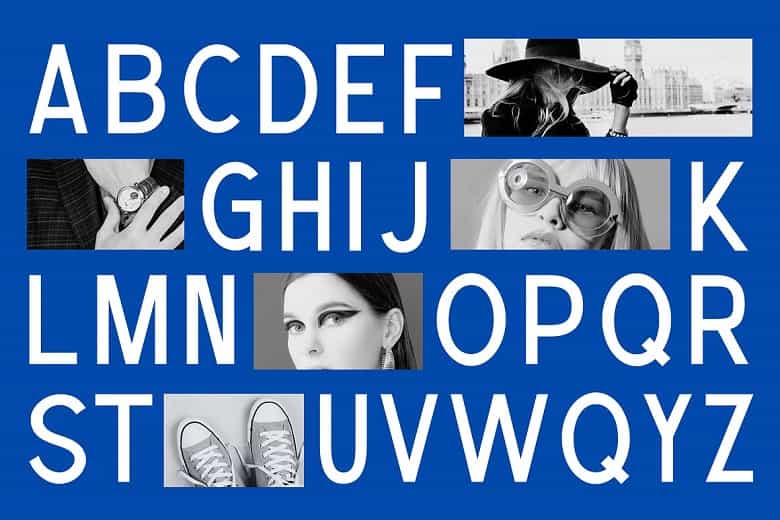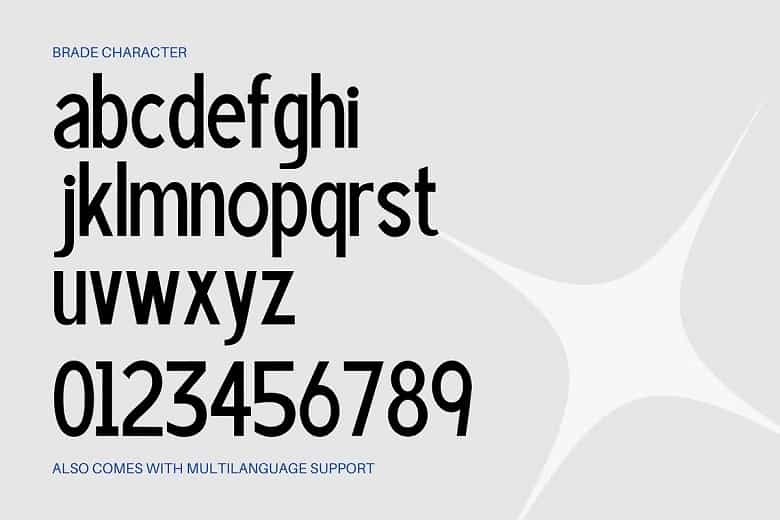
Brade Font has the advantages of clear lines, reasonable size ratio, and unique features that are quite different from conventional sans-serif types. Due to its sparing and highly geometric design, it can be used in various fields, from logo and poster design, and advertising to covers and web design.